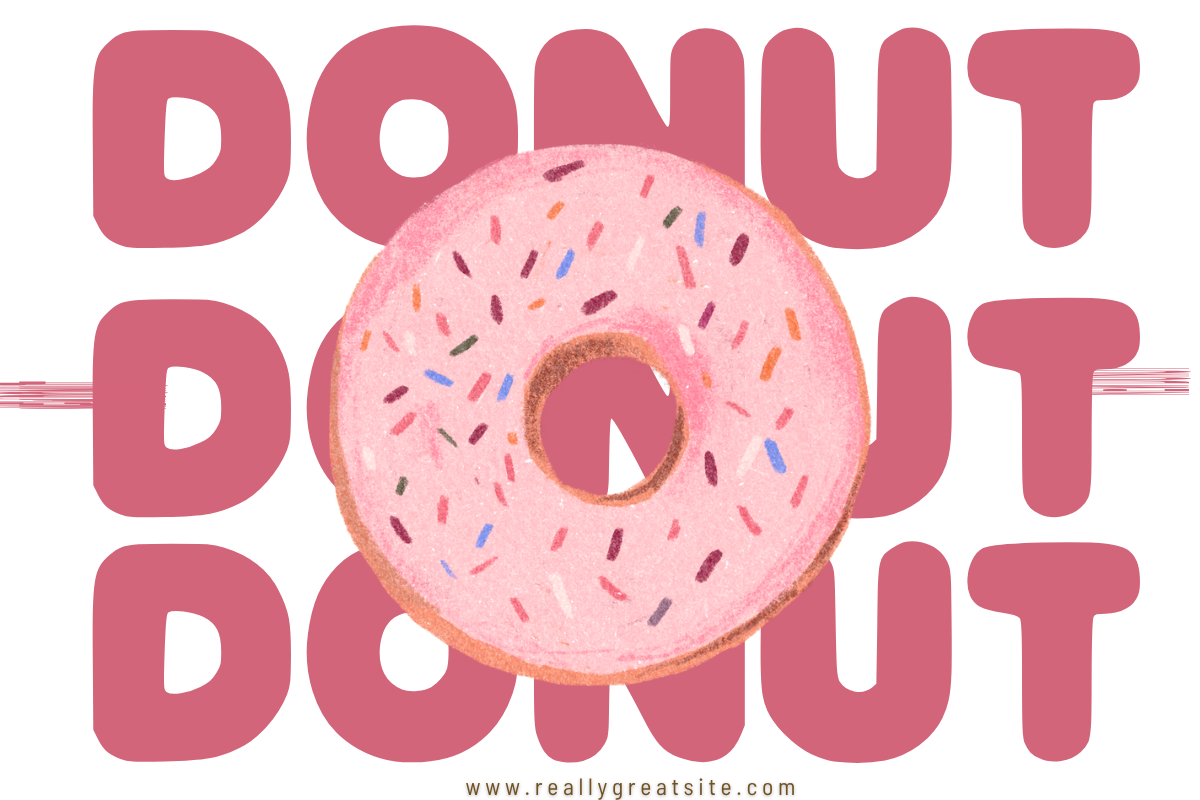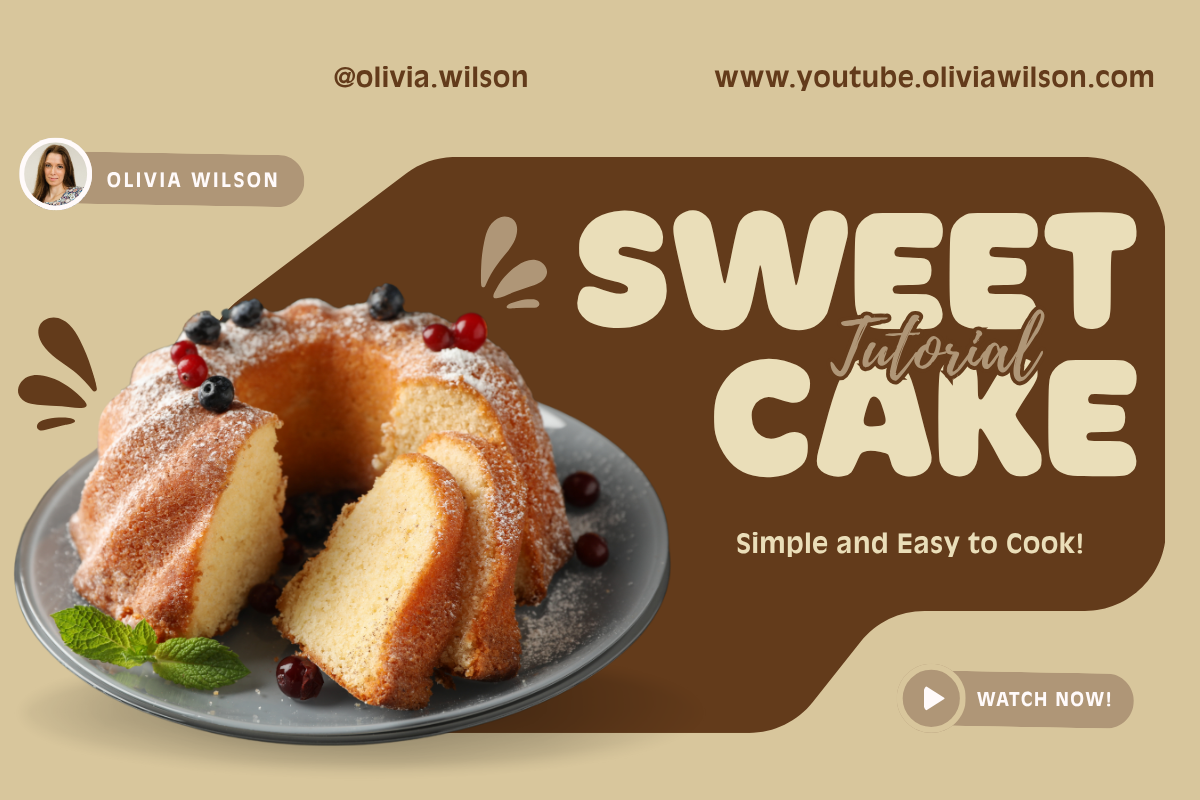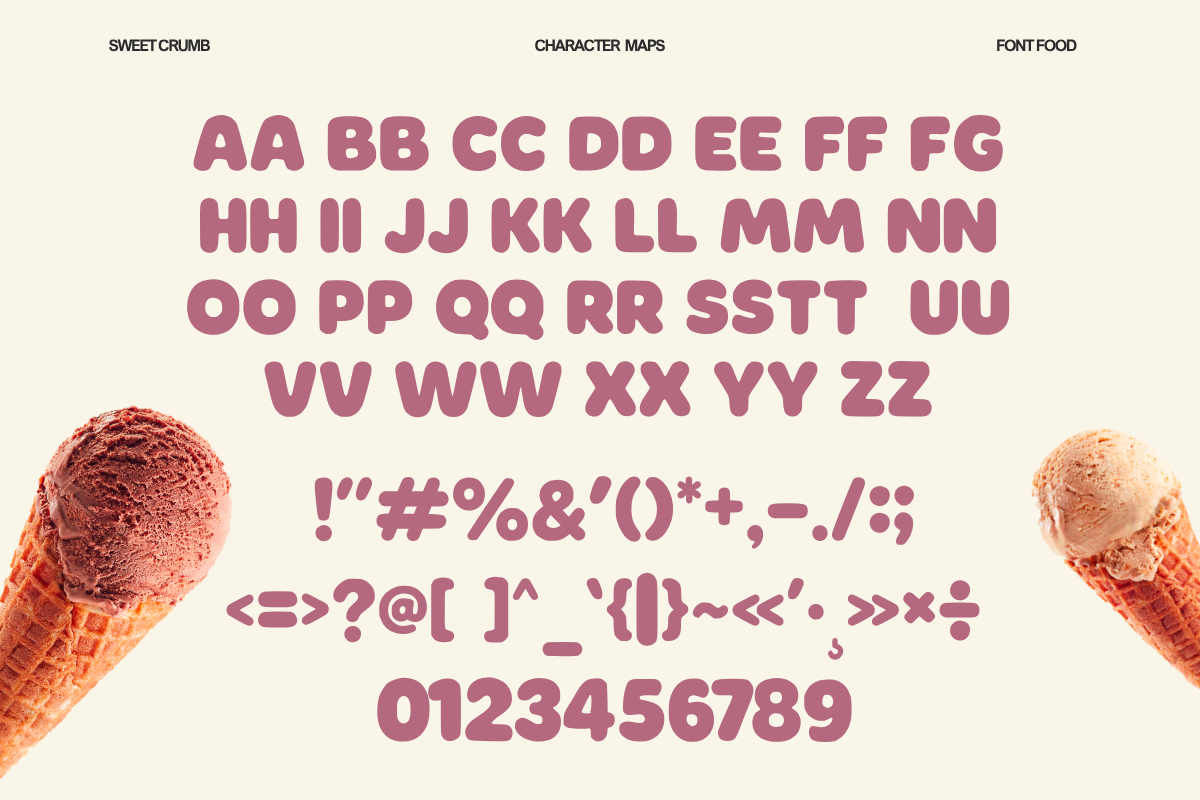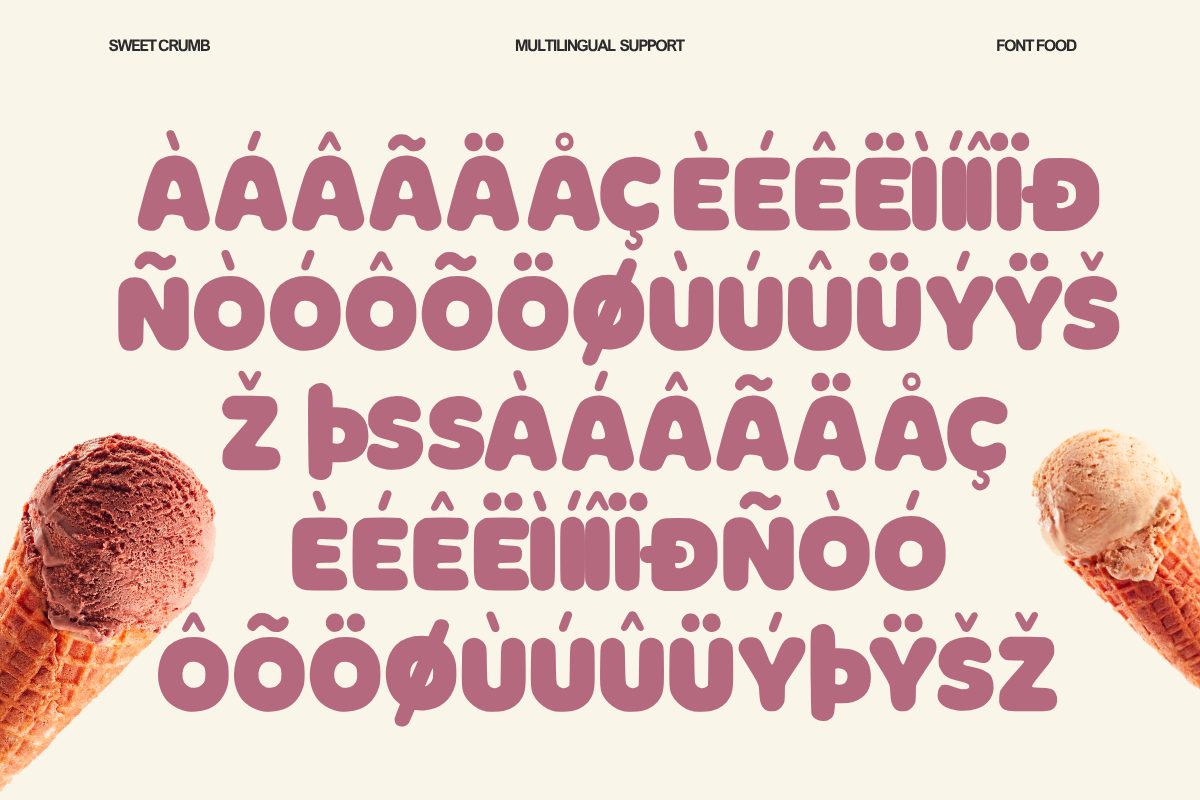
Sweet Crumb - Playful Food & Display Bold Font
Make your designs irresistible with Sweet Crumb, a fun, bold, and playful all-caps display font crafted specially for culinary brands, sweet treats, and creative packaging. With its rounded, chunky proportions and friendly vibe, Sweet Crumb instantly catches attention and brings joy to any visual project.
Whether you are designing eye-catching ice cream packaging, vibrant bakery logos, kids' menu cards, or playful social media graphics, Sweet Crumb offers the perfect balance of bold readability and cheerful charm.
• Uppercase All-Caps Letters
• Numbers & Functional Punctuation
🍰 Perfect For:
• Food & Beverage Branding: Ice cream shops, bakeries, cafes, candy stores, and snack brands.
• Packaging & Labeling: Cake boxes, dessert jars, juice bottles, and snack pouches.
• Print & Publishing: Children's books, restaurant menus, party invitations, and posters.
• Digital Media: YouTube thumbnails, Instagram posts, promotional banners, and stickers.
💛 Why Designers & Buyers Love Sweet Crumb:
• Bold & Eye-Catching: Thick, friendly strokes ensure maximum readability even from a distance.
• Versatile Food Font: Instantly gives a mouth-watering, joyful, and approachable feel to culinary brands.
Add a delicious pop of personality to your next design project with Sweet Crumb!